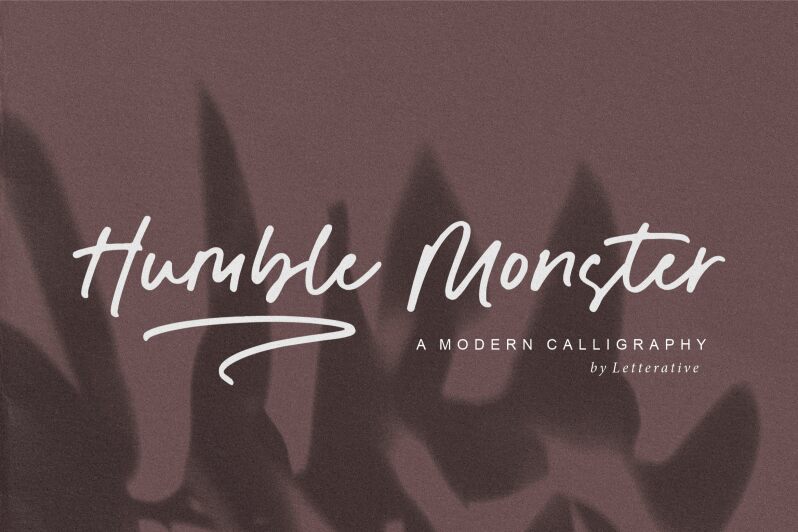
Humble Monster
Humble Monster, a captivating signature-style font crafted by Letterative Studio, exudes a whimsical charm that effortlessly bridges the gap between playfulness and sophistication. This handwritten typeface boasts a dynamic, organic flow, with each stroke capturing the spirited essence of a unique artistic expression. The font's elegant, yet approachable aesthetic lends itself to a wide array of design applications, from personalized stationery and branding to eye-catching headlines and product packaging.
Humble Monster's versatility shines through its ability to establish a warm, inviting tone that resonates with audiences. Its distinctive, expressive character makes it an excellent choice for projects seeking to convey a sense of authenticity, personality, and individuality, whether in the realm of editorial design, social media content, or creative marketing campaigns.